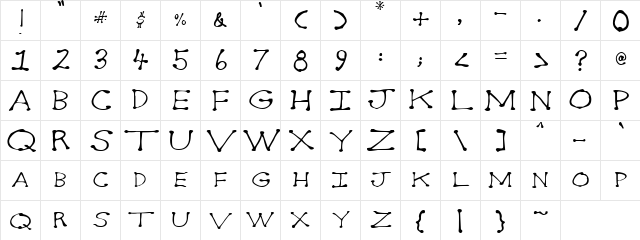
Dancingbaby Regular Free Font
Dancingbaby Regular
Designer: JupiterImages
Design Context for Dancingbaby
Dancingbaby is a composed and adaptable typeface that performs quietly and consistently across a wide range of design contexts.
Pro Tip: Use Dancingbaby in both headline and body roles to test its range before committing to a single application.